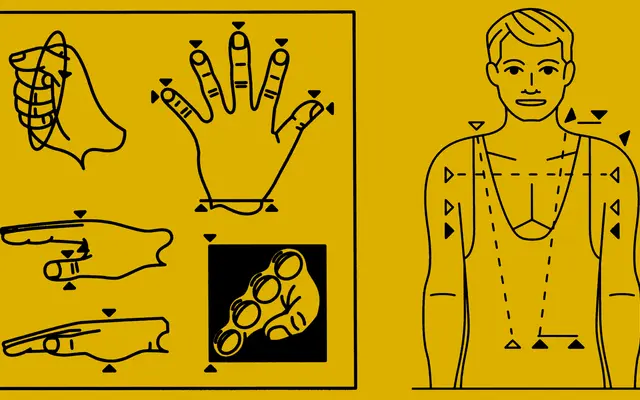
Ergonomics
A2-Type · 2009
A single-style display and signing face created for the Design Museum London's 2009 Ergonomics exhibition, distinguished by its arrow terminals.
Originally commissioned as a display and wayfinding typeface for the Design Museum London's 'Ergonomics – Real Design' exhibition in 2009–10, the family comprises three variants: the standard cut, a Closed version, and an Arrows version that foregrounds the distinctive directional terminals. The design is uppercase-only and purpose-built for large-scale headline use. Its exhibition origins give it a functional, institutional character that separates it from purely decorative display faces.
A single-style headline and signing face with arrow terminals, designed for exhibition signage and display purposes, placing it firmly in the display category with geometric sans characteristics.